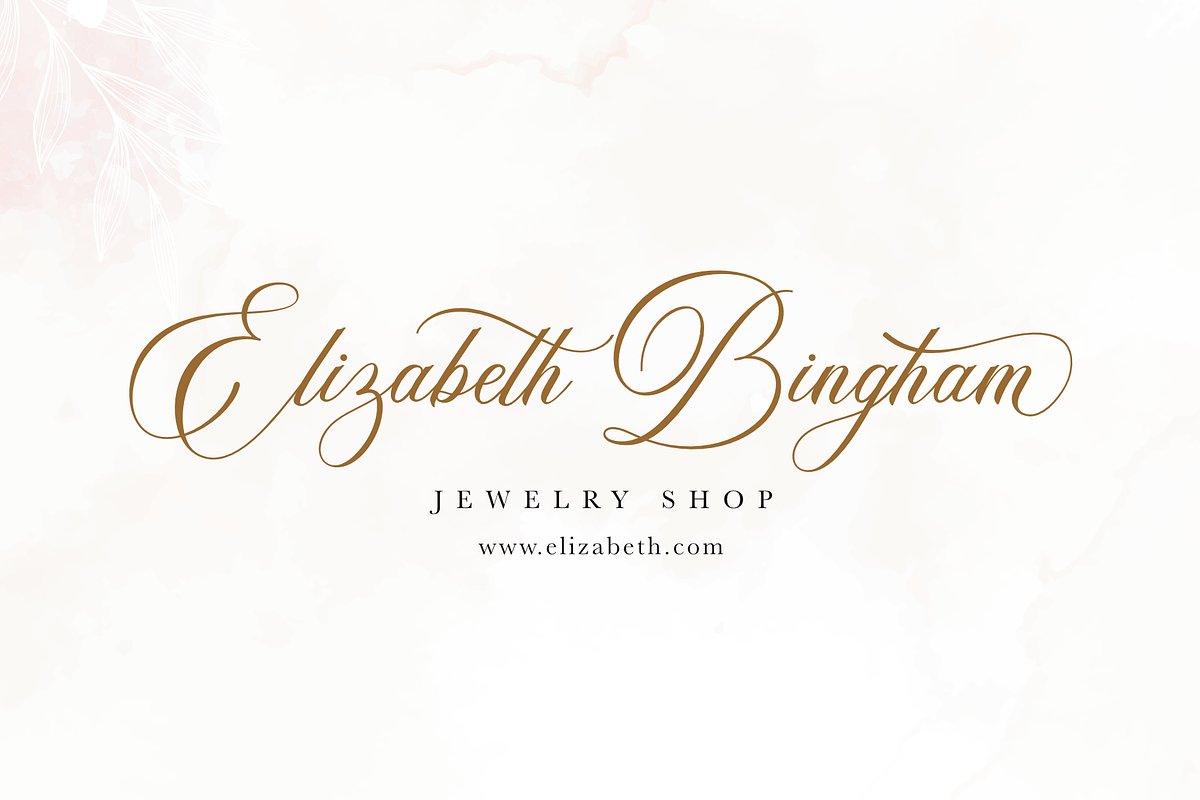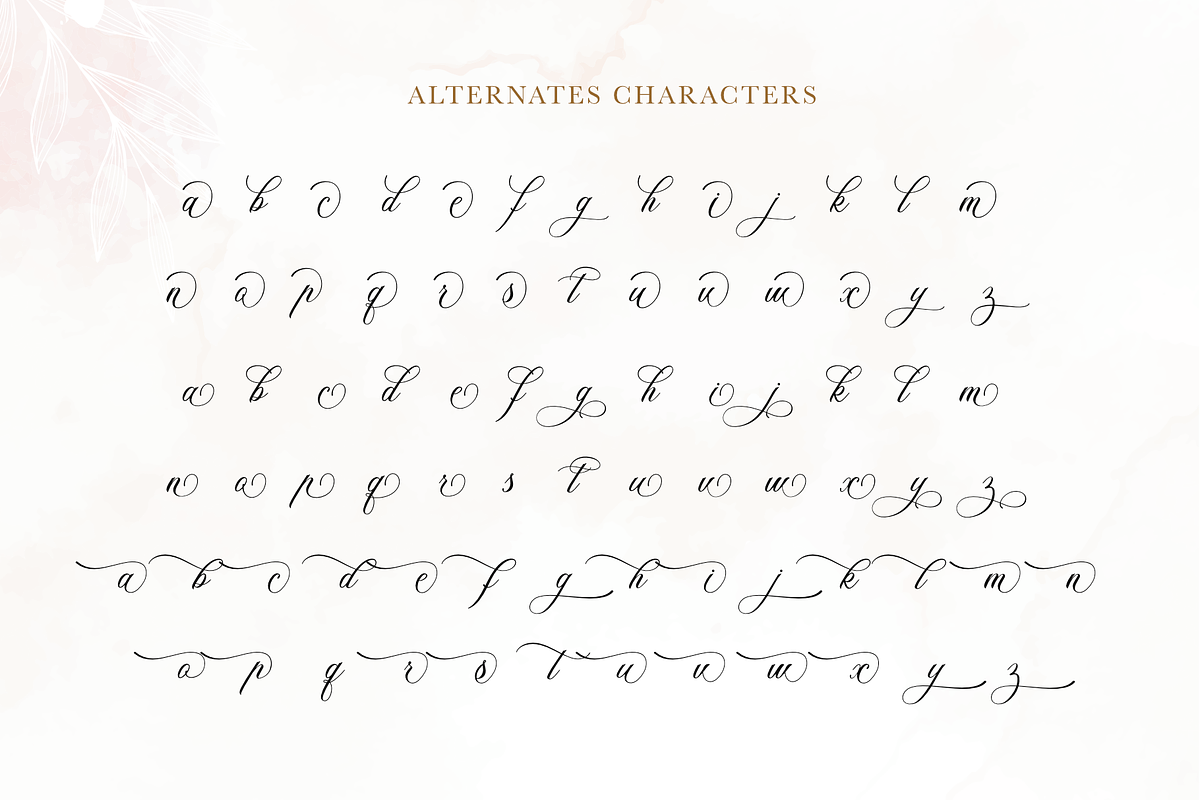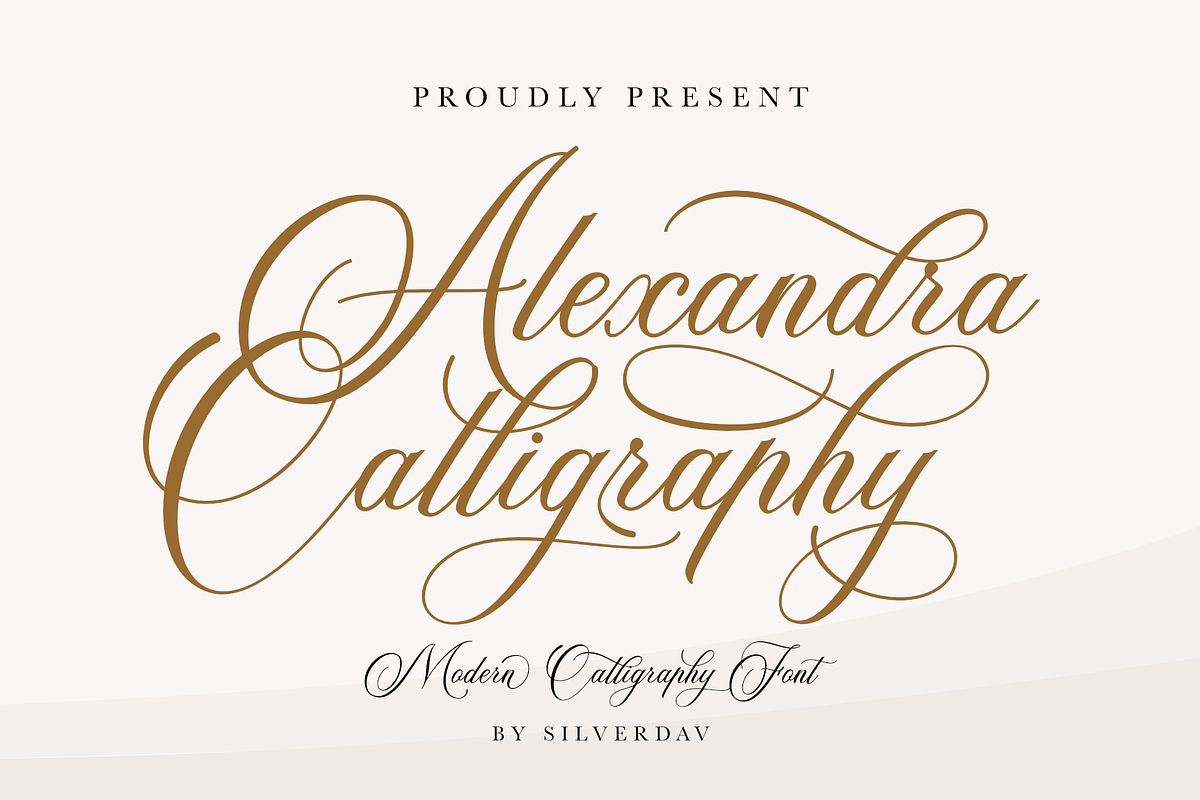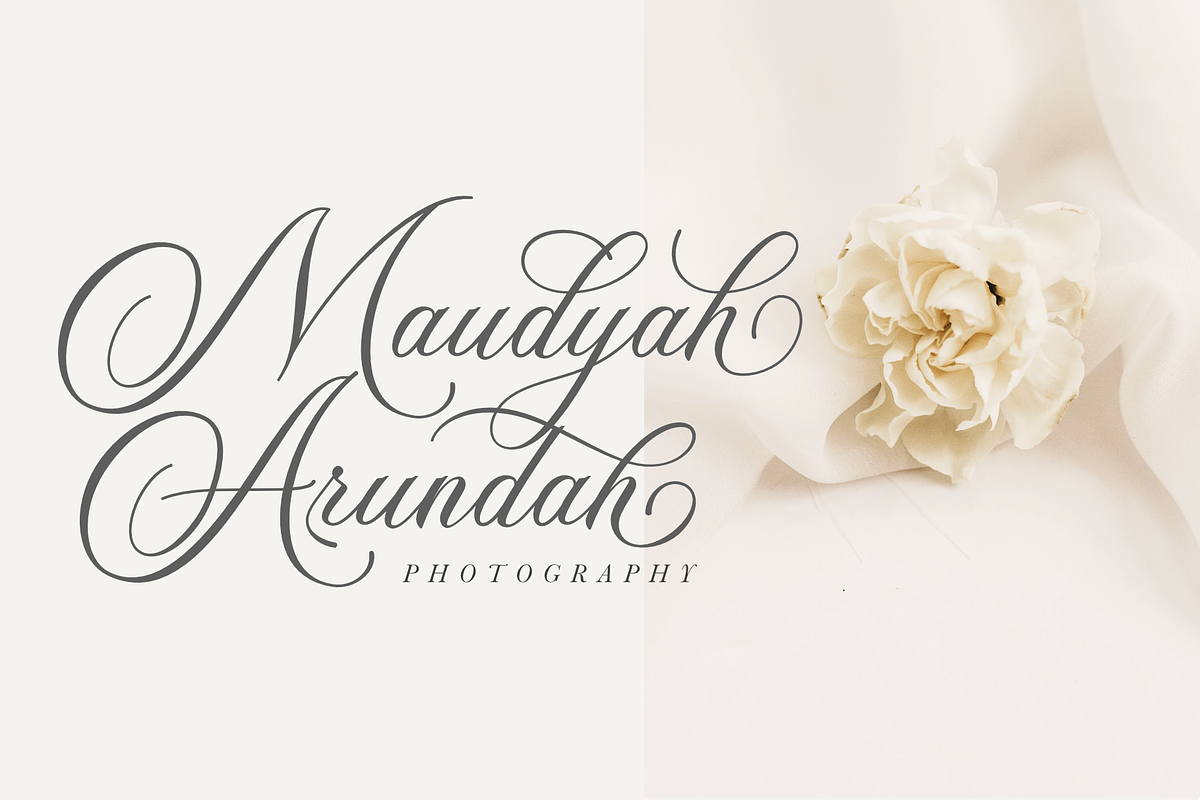
Alexandra Calligraphy
Introducing, Alexandra Calligraphy is a unique calligraphy font, created to complement your designs and make your designs beautiful and more attractive.
Alexandra Calligraphy is very well made, with very neat strokes that add a luxurious impression, there are many lowercase Alternate letters that you can use to enhance your design, this is really charming, please try it yourself.
There are 4 unique Ligatures for the "tt" Lowercase, and it's quite easy to access them, you only need to add numbers 1-4 behind them, for example, tt3 or tt2
Alexandra Calligraphy is perfect for Branding, Logos, Wedding Invitations, Quotes, Magazines, and many more.
- With 120 Alternates
- Multilingual Support ( Support for 90 languages )